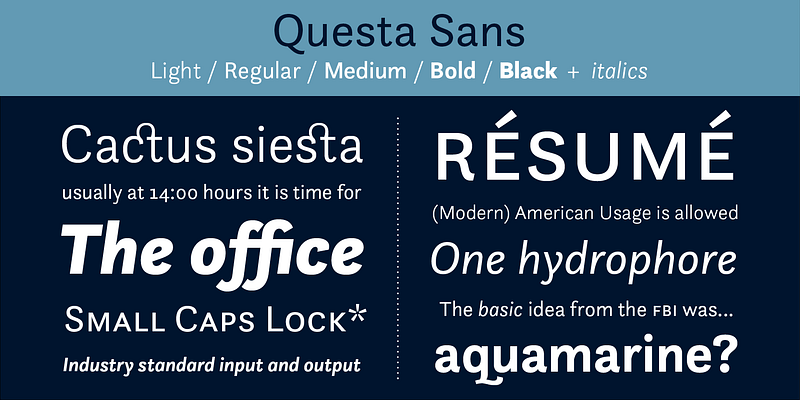
The Questa Project
The Questa Project is a type foundry that was formed in 2010 by Dutch type designers Martin Majoor and Jos Buivenga. Their collaboration on a family of typefaces – which they called Questa – was the immediate reason to form the foundry. The superfamily contains a serif, a sans and a slab, as well as a display version.